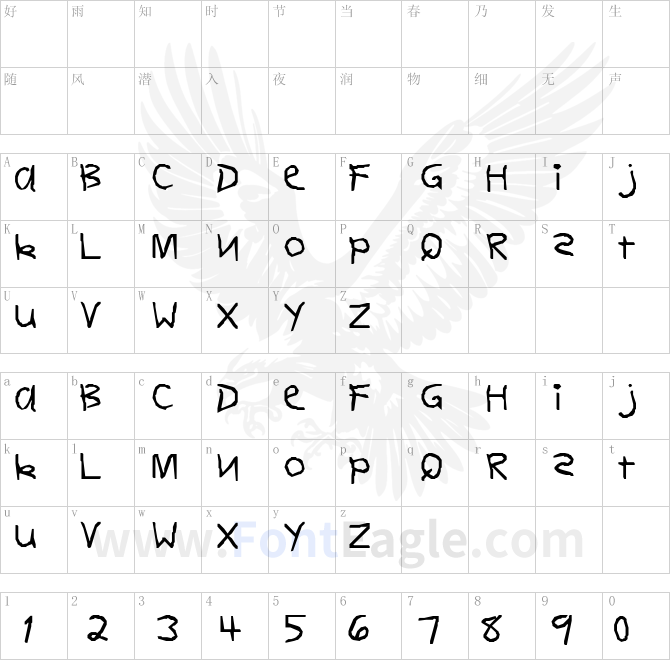
FirstGrader-Normal is a great font, widely used in graphic design, single-page menu design, poster design and other fields, and is deeply loved by designers.FirstGrader-Normal download.